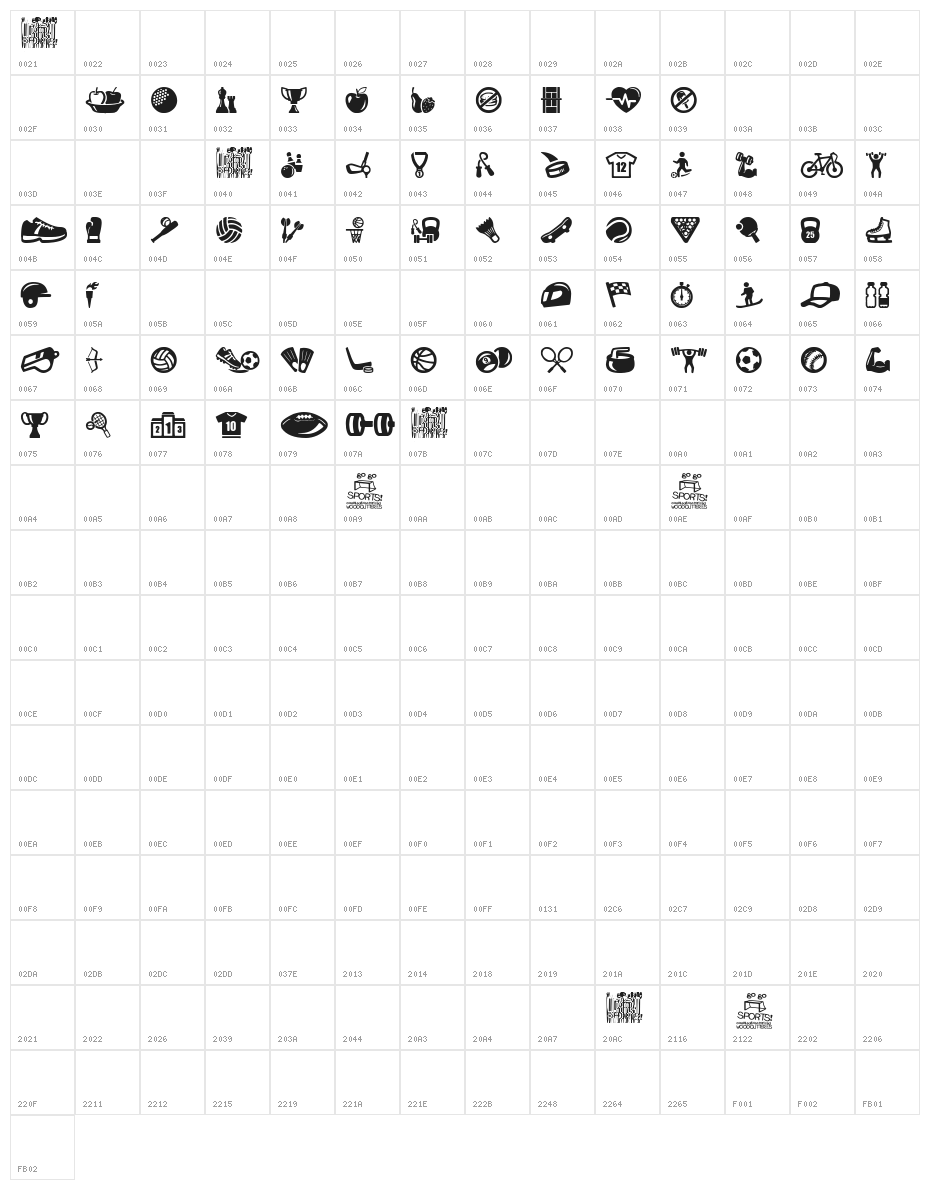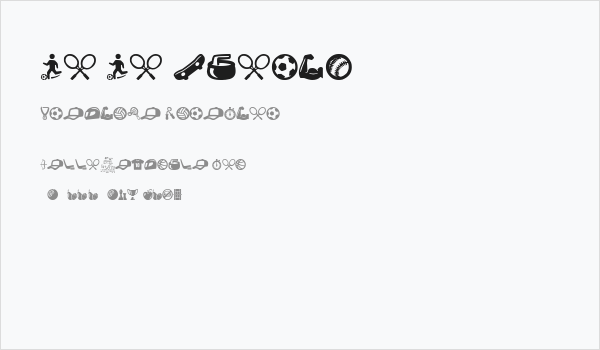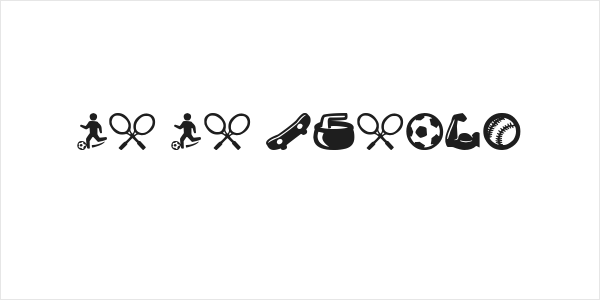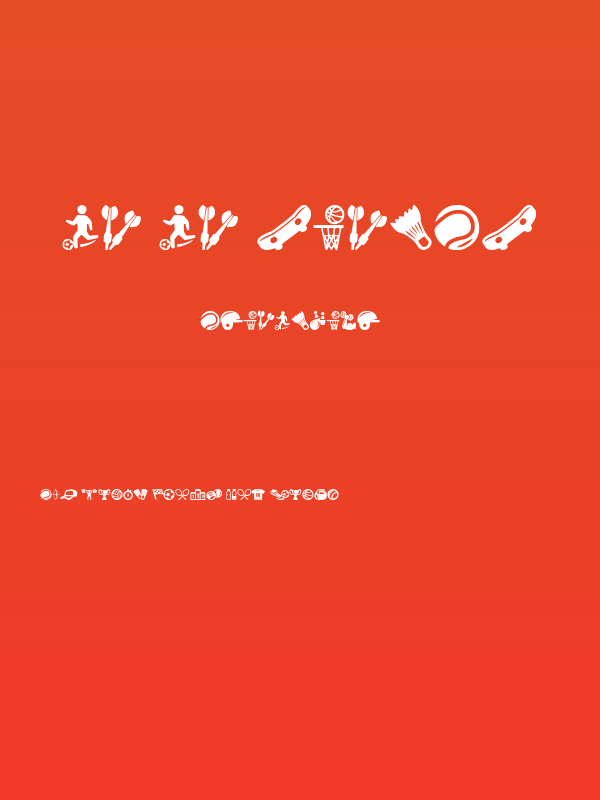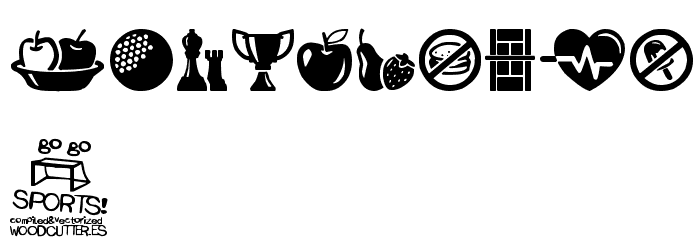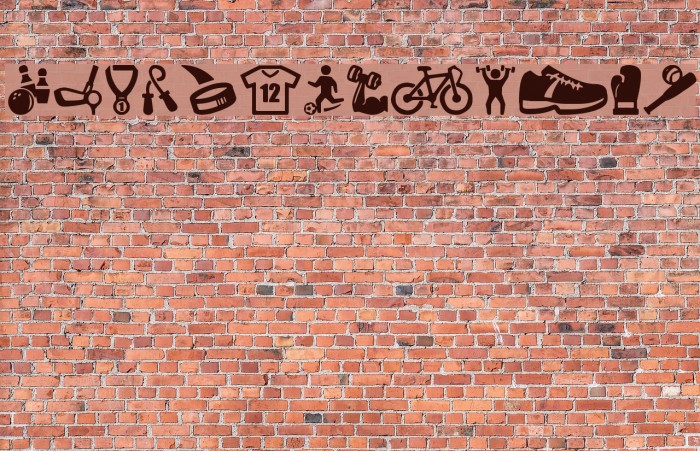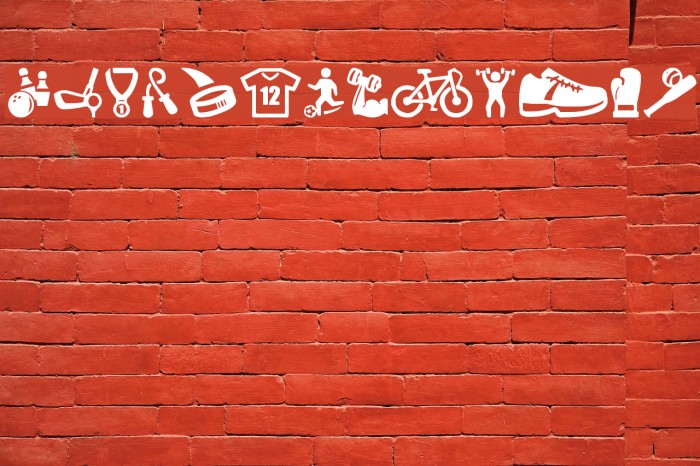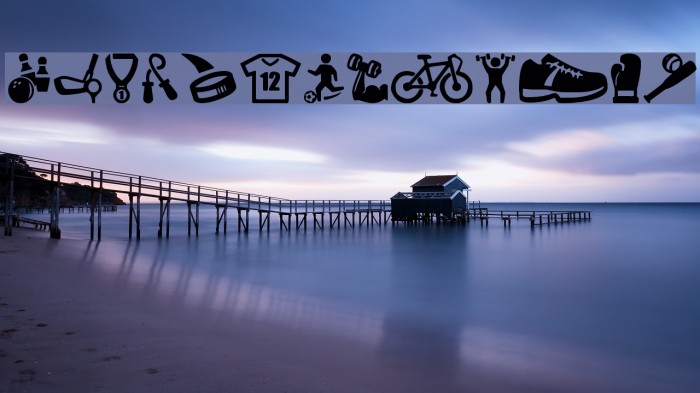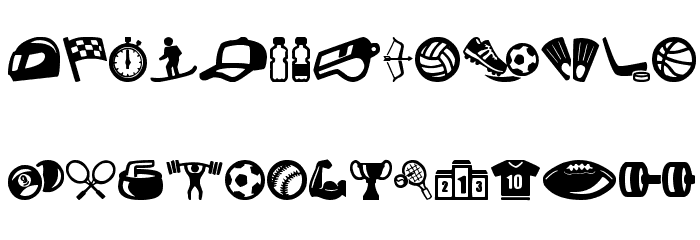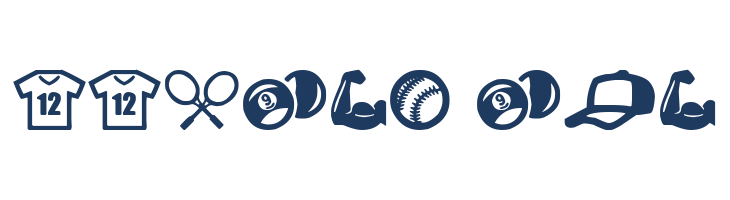
Go Go Sports Font
Go Go Sports Description
A playful and bold dingbat font featuring a wide variety of sports and fitness-related pictograms, including equipment, activities, and health icons. Each character is represented by a distinct, high-contrast black silhouette, making the icons easily recognizable and suitable for visual communication.
| Overall Style | Playful, Decorative, Modern |
| Use Case | Icons, Infographics, Themed graphics, Posters |
| Proposed Projects | Sports event posters, activity schedules, infographics, educational materials, children’s books, fitness apps, and themed party invitations. |